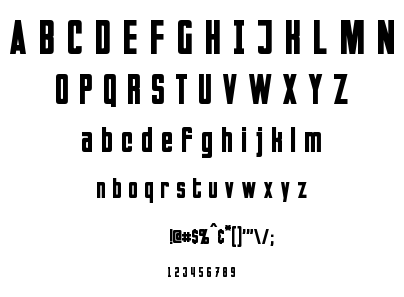
A science-fiction themed font based on movie posters from the 1960s ‘horror aliens’ schtick. Includes standard glyphs, Euro, and accented characters.